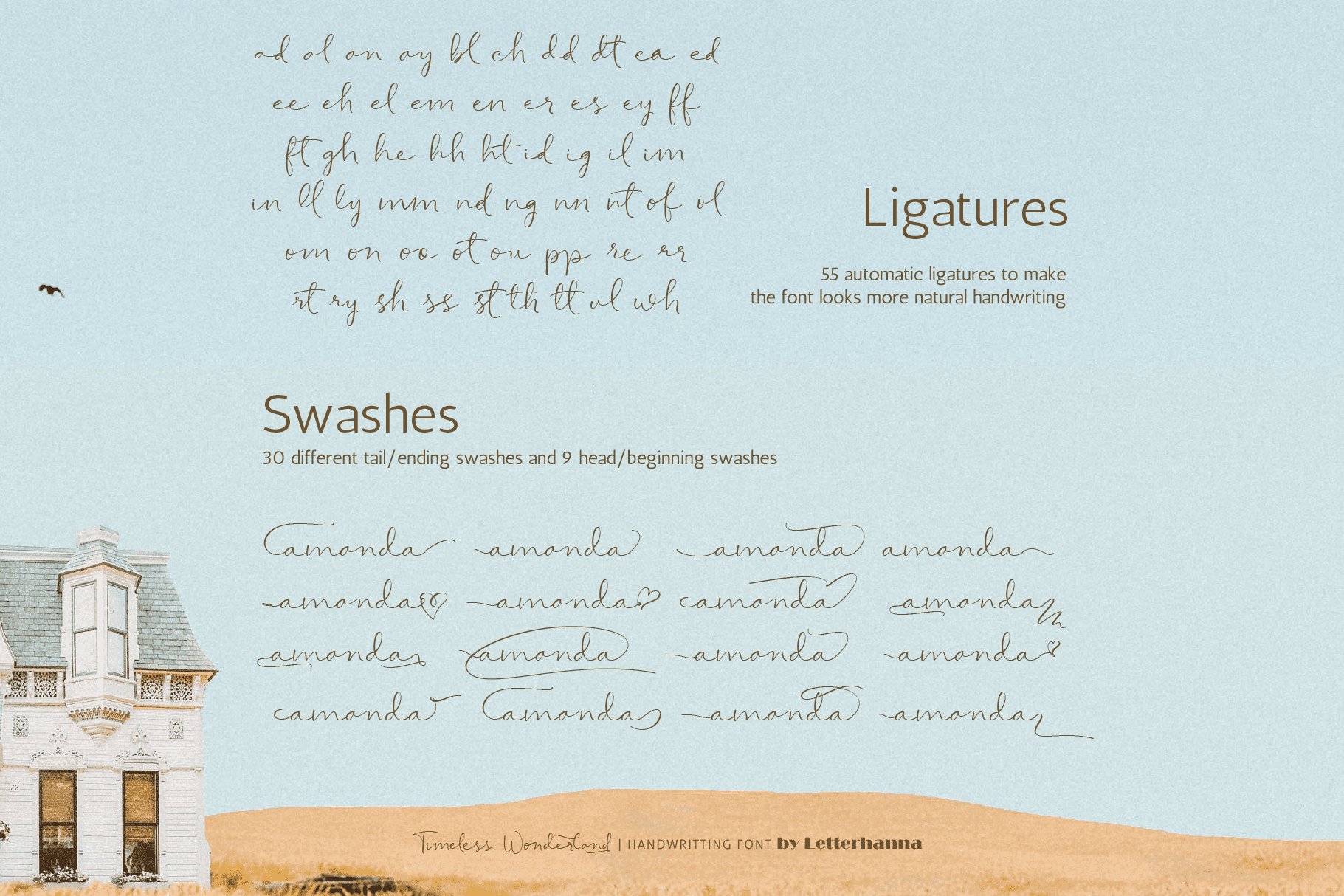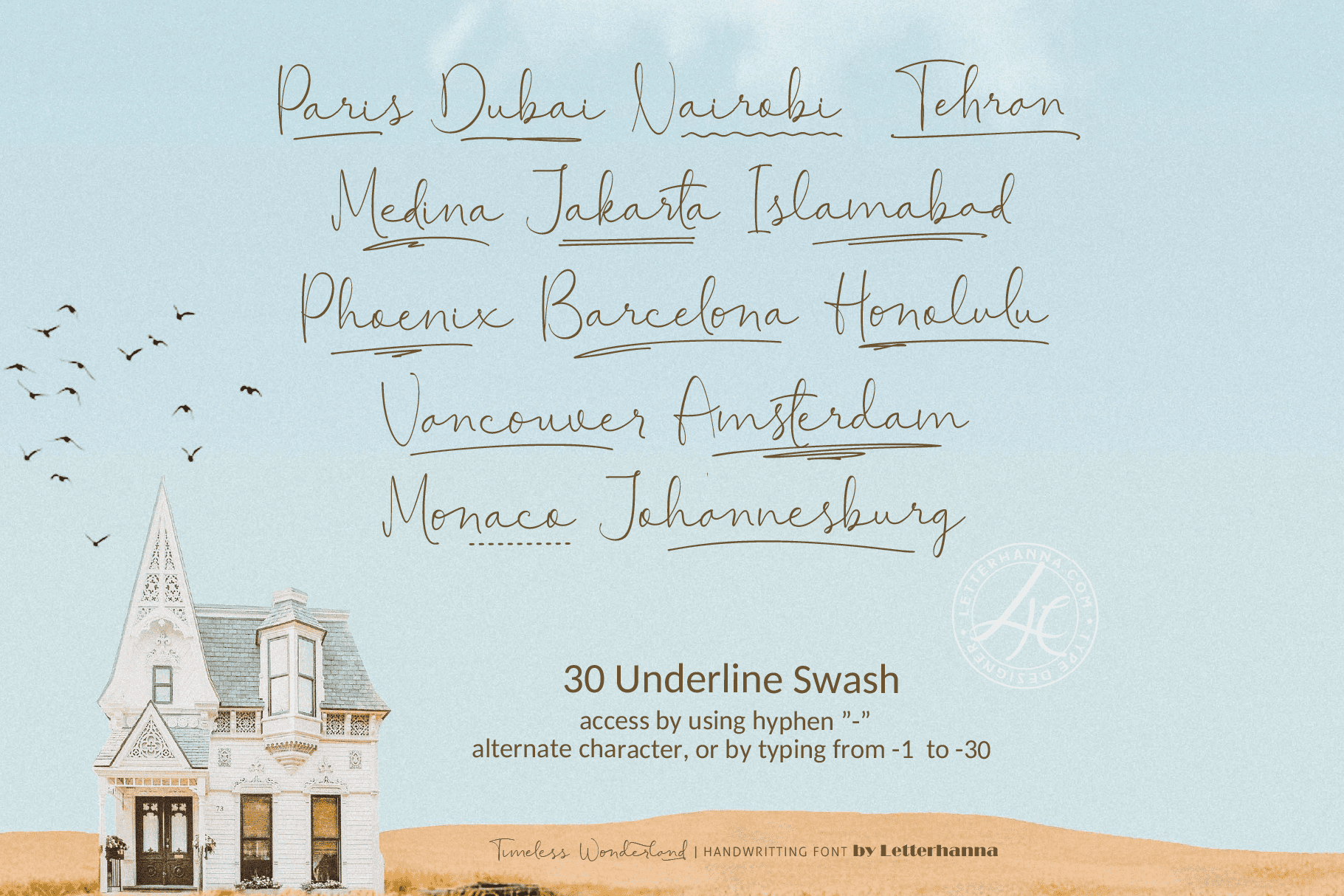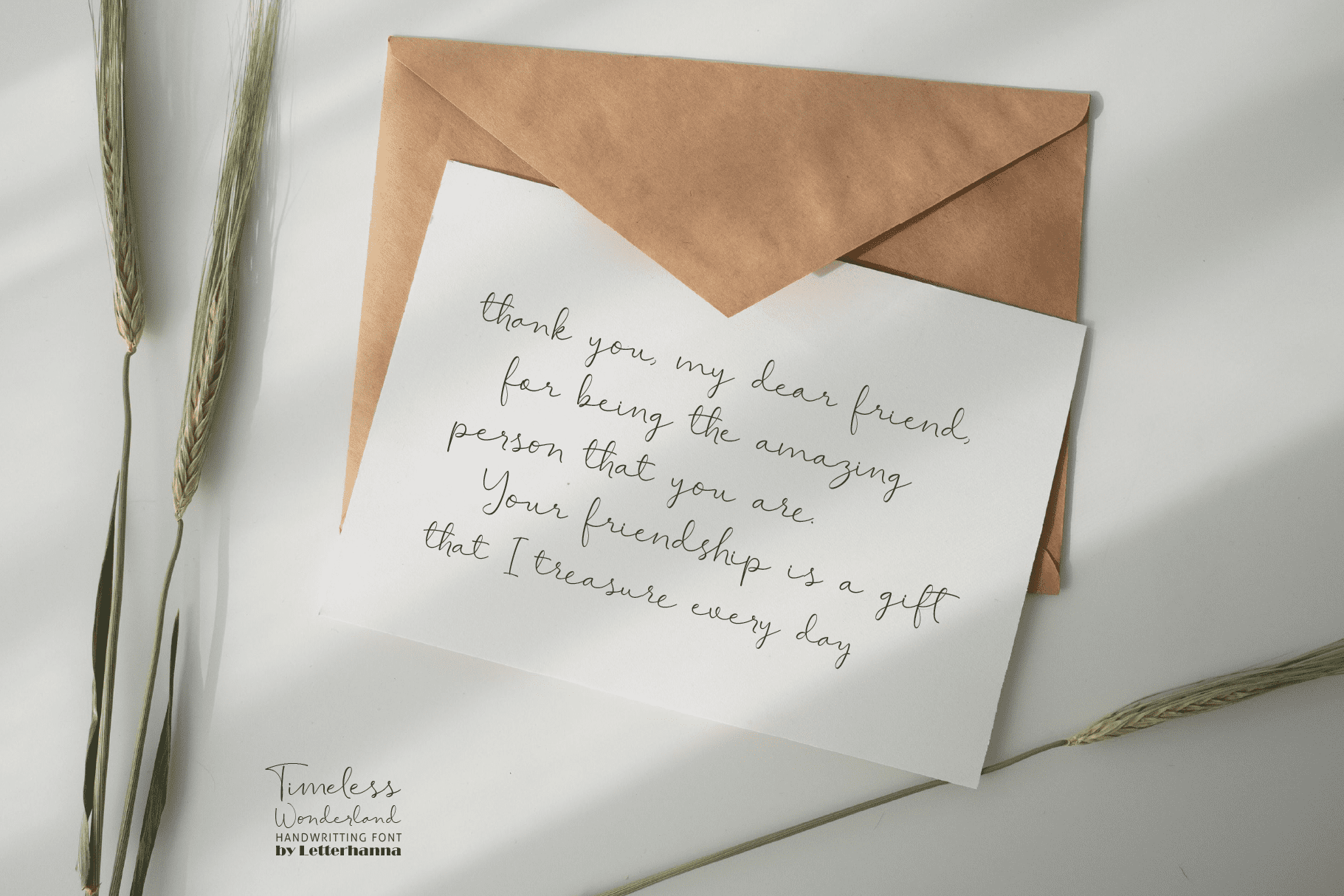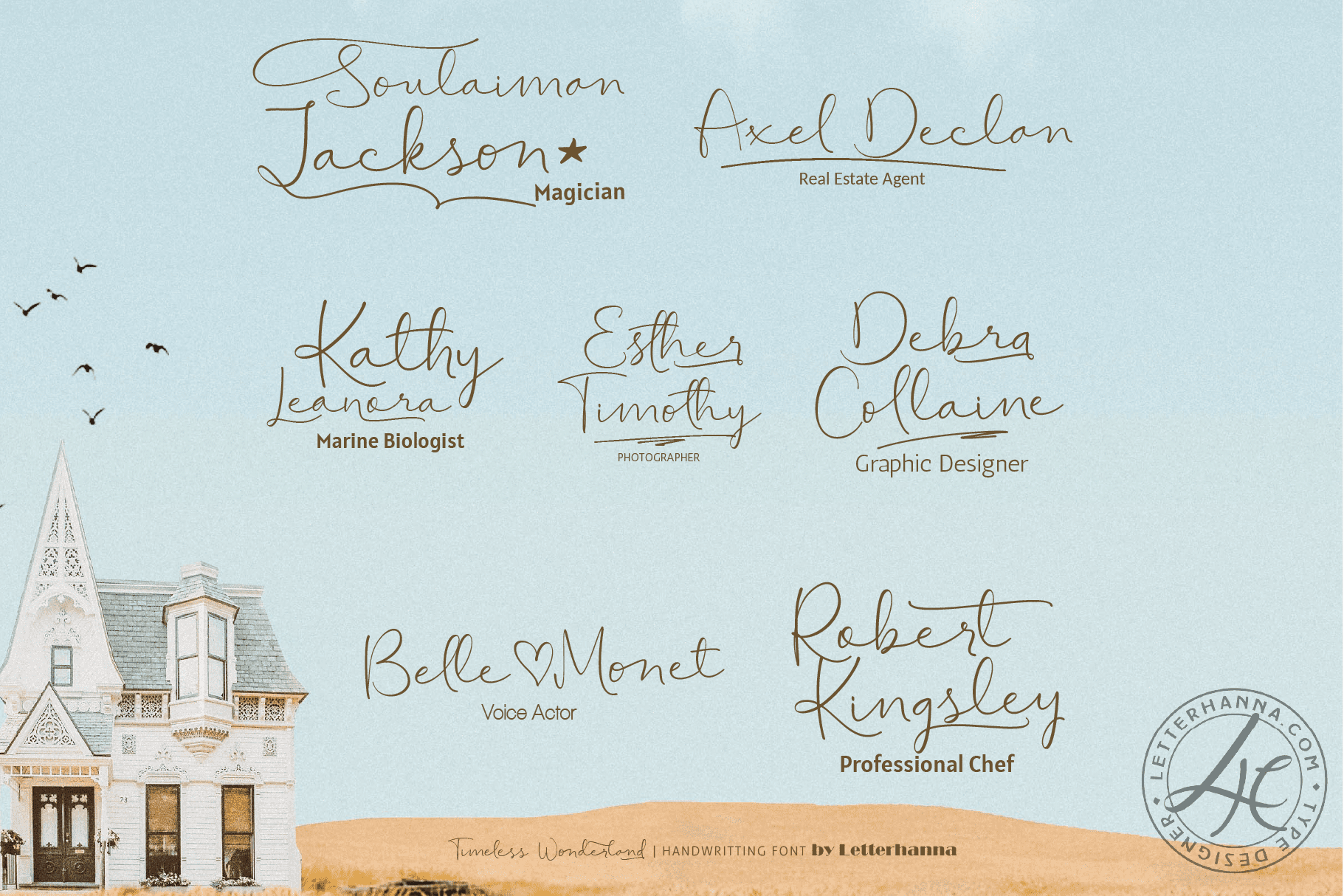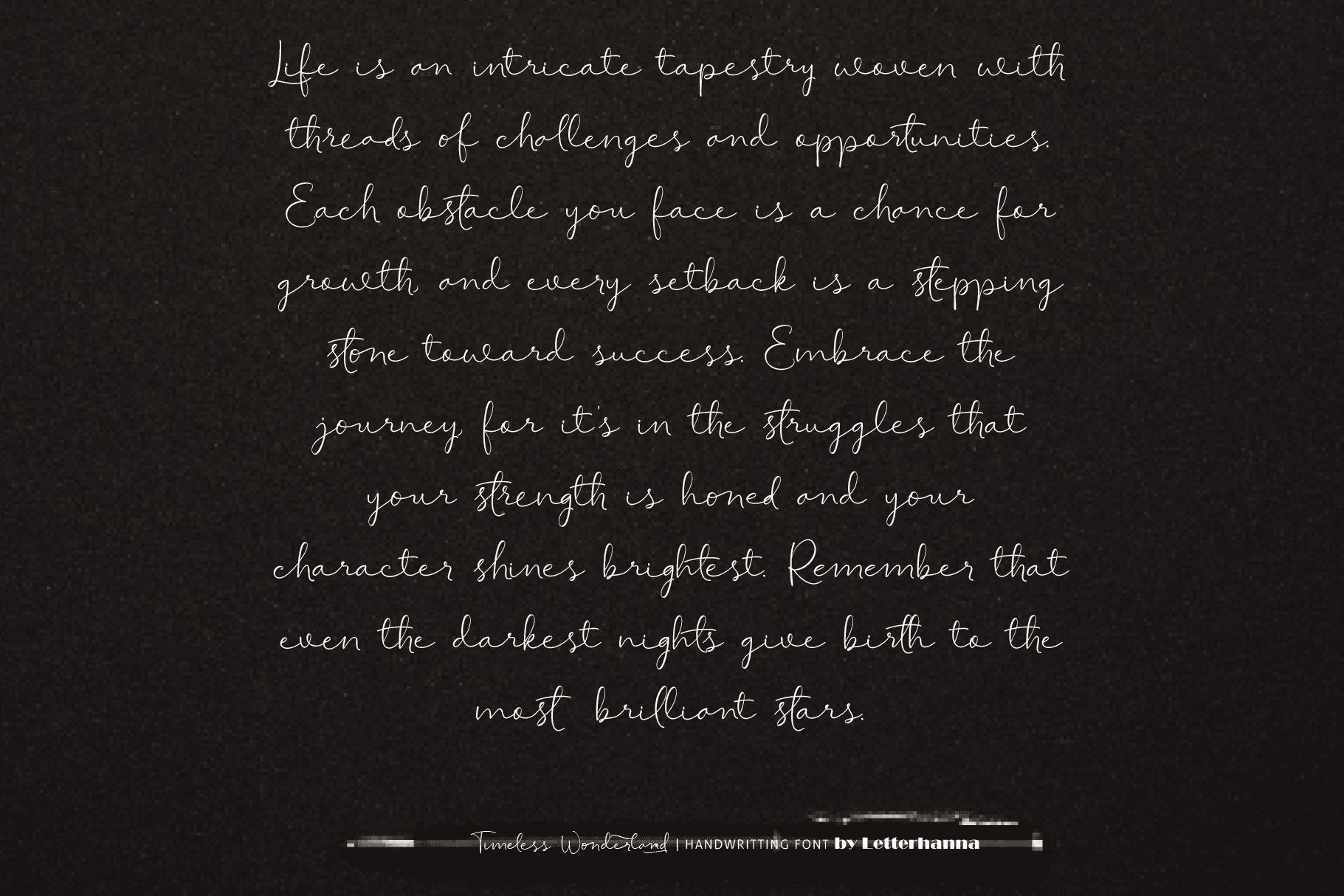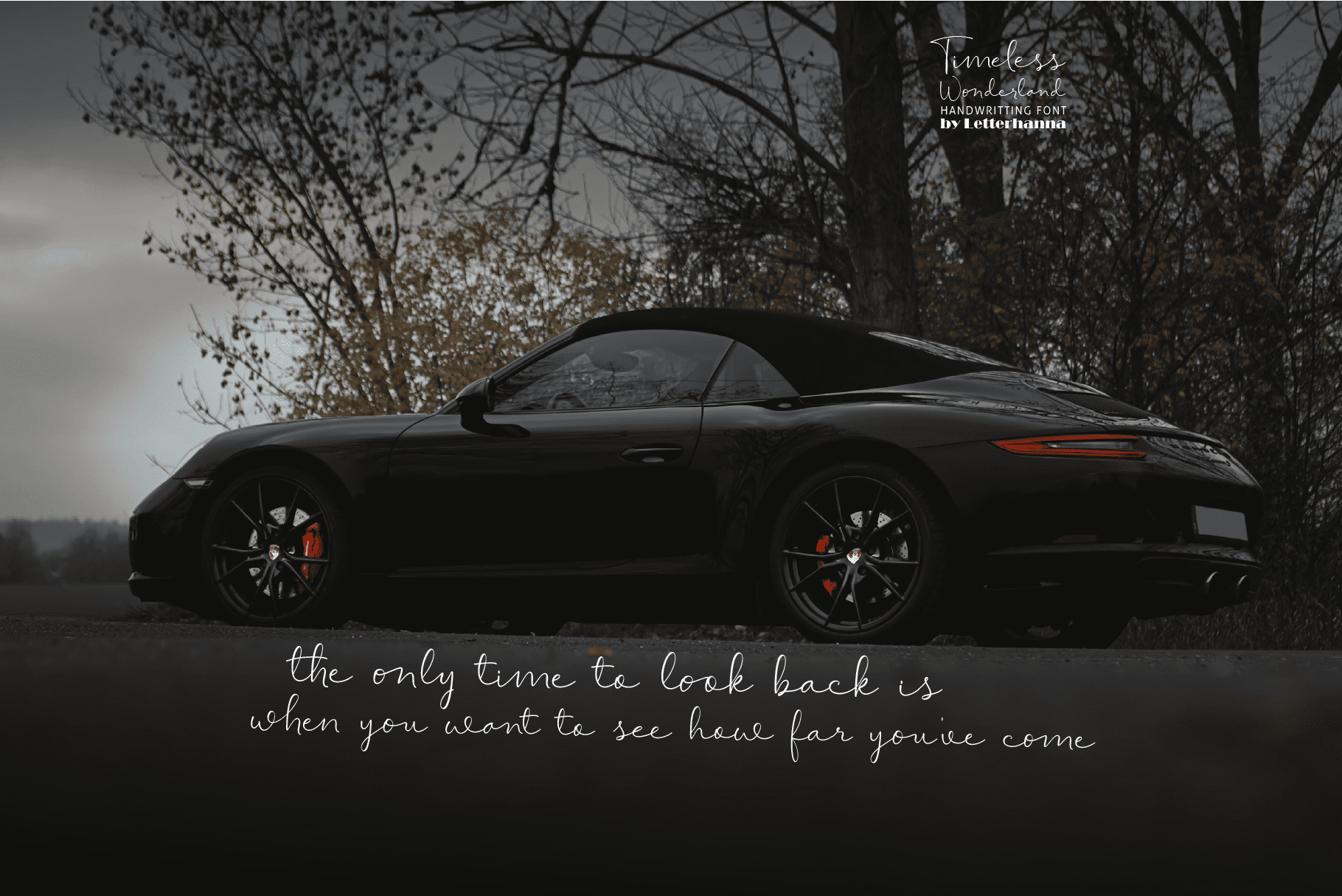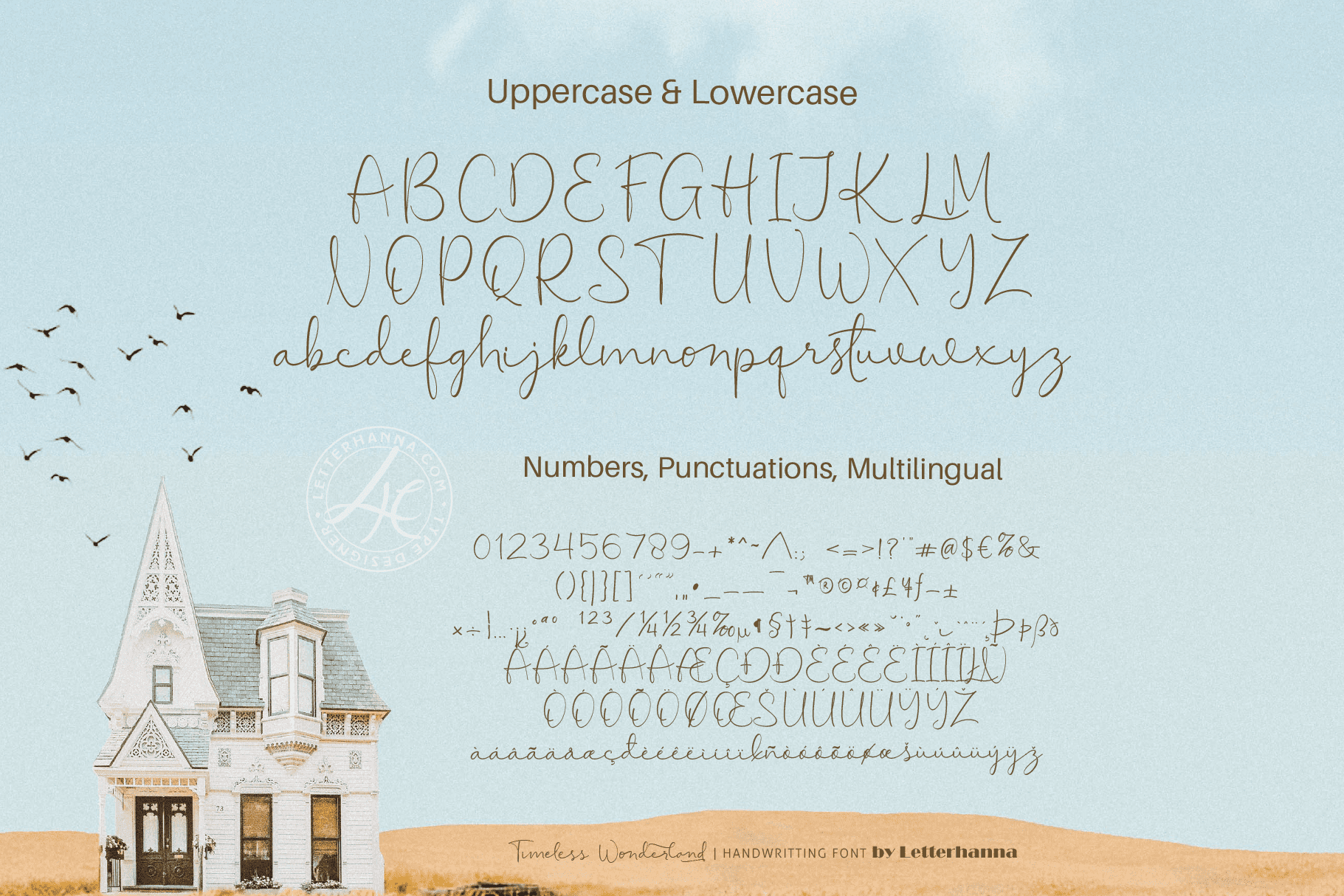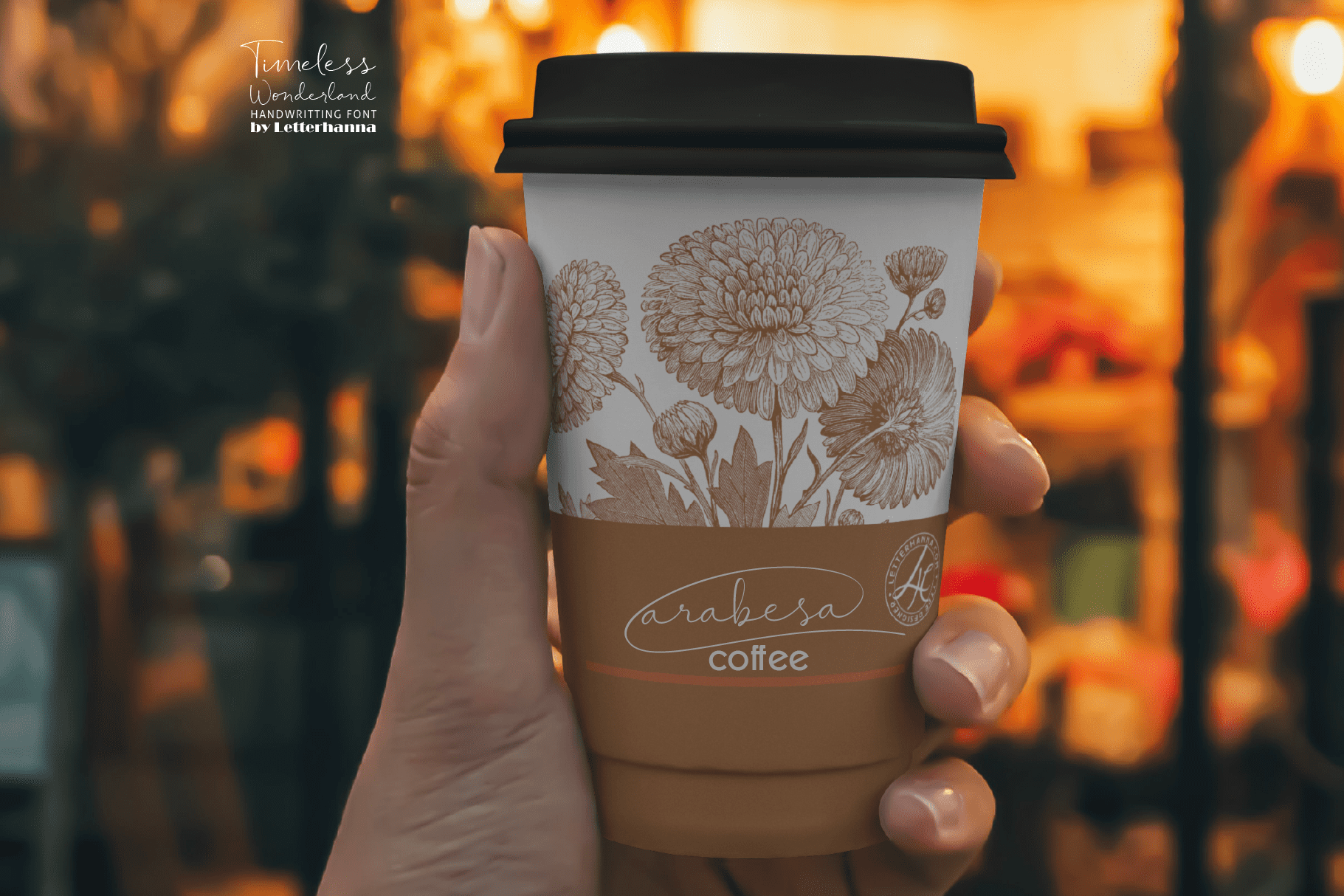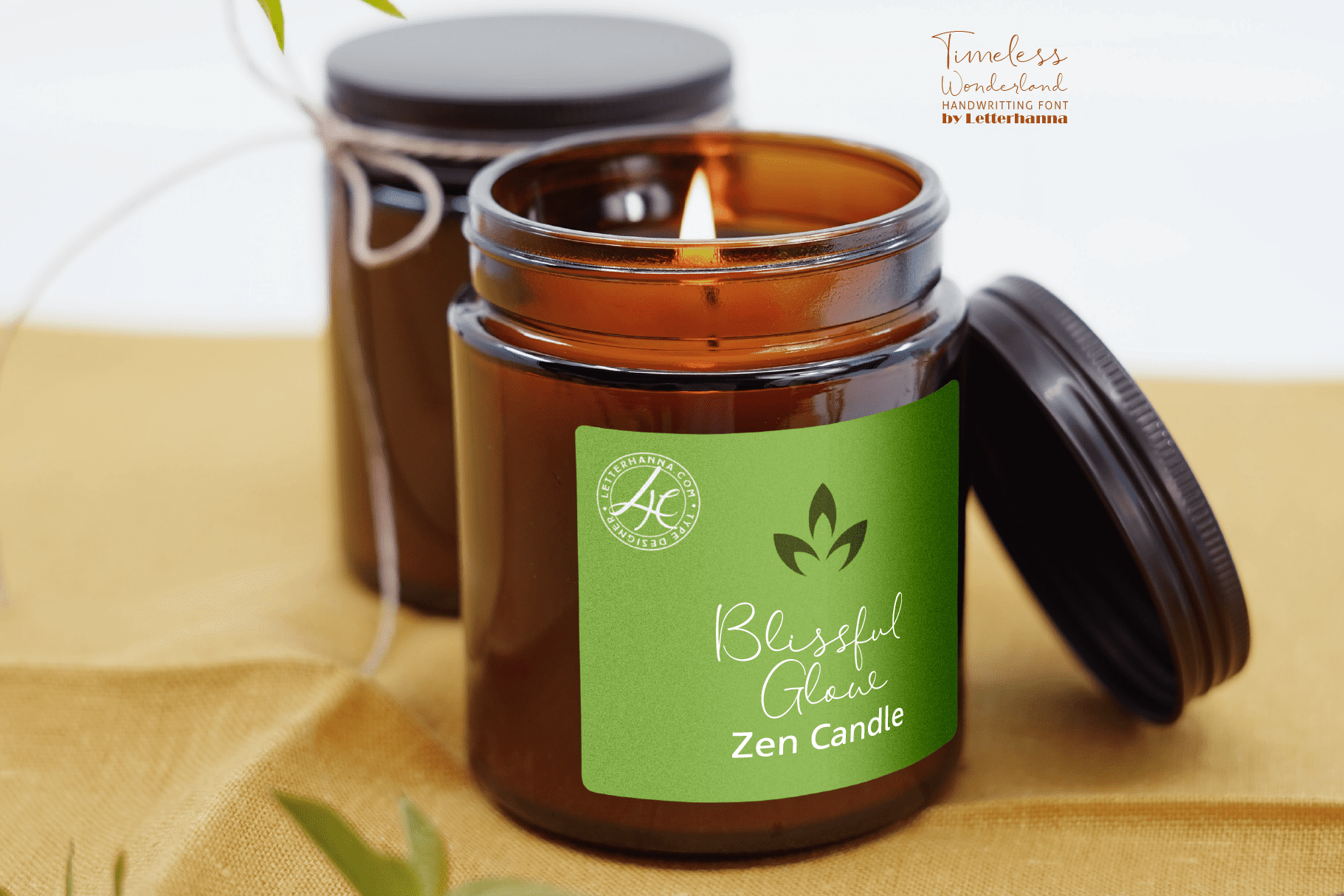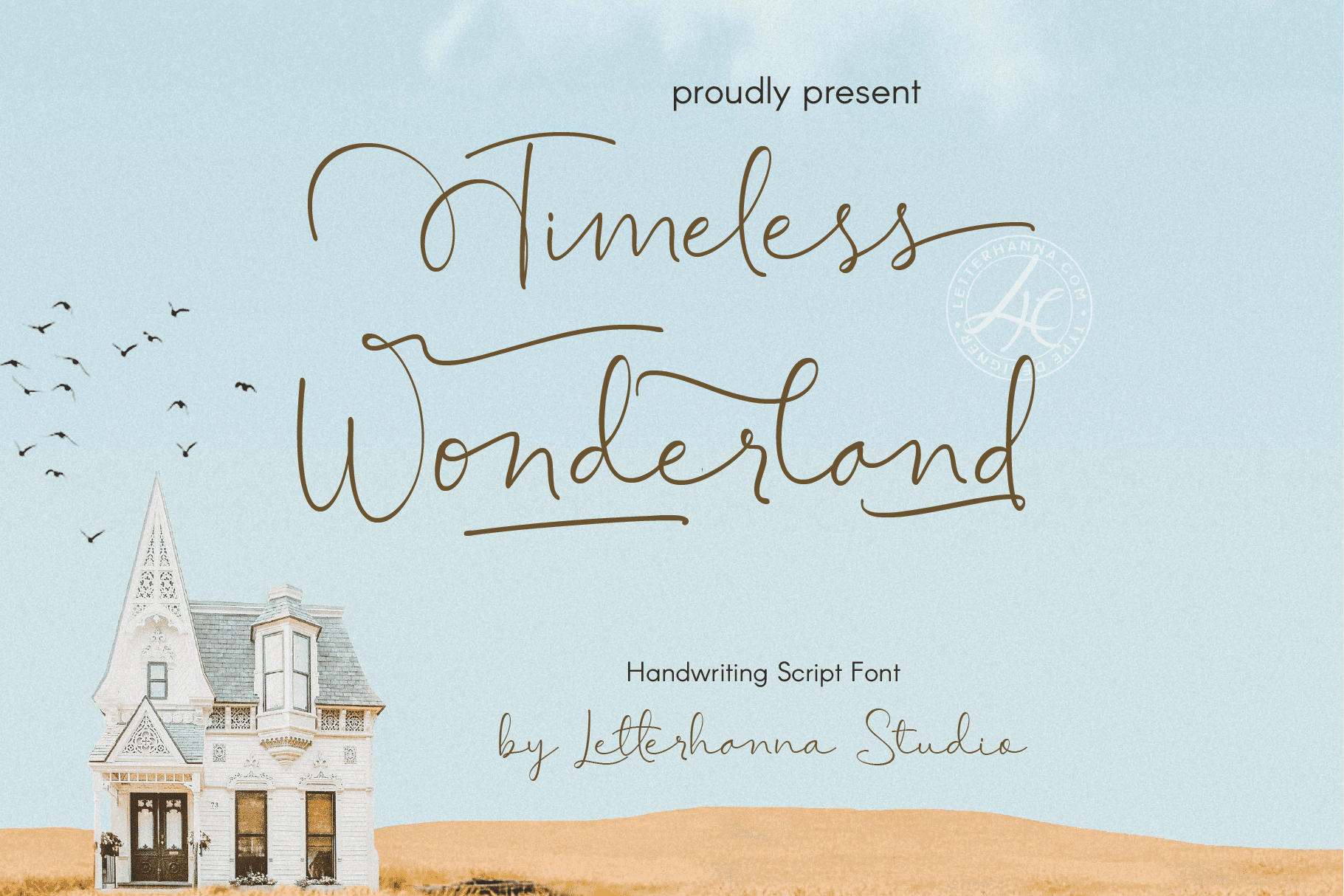
Timeless Wonderland is a captivating calligraphic handwritten script font that weaves a story of timeless beauty and enchantment. Each stroke of this font is a testament to the artistry of calligraphy, making it the perfect choice for creative projects that seek to blend elegance with an enduring sense of wonder.
Let “Timeless Wonderland” transport you to a world where beauty knows no bounds, where creativity is eternal, and where each letter penned tells a story of timeless wonder and elegance.
Easy access all alternate glyphs, swashes, ornaments and underlines just by using ligatures, you can try yourself in the font preview tool.
Stylistic alternate can be access by type plus symbol “+” in front of the original letter, for example type +A to get stylistic alternate of letter A capital.
Underline swashes can be access by type hyphen symbol “-” then followed by number 1 to 30, for example type -3, -22 or -17 etc to get various different underline swashes.
Head/beginning swashes can be access by type dollar symbol “$” then followed by number 1 to 9, for example type $2 or $8 to get various different head/beginning swashes.
Tail/ending swashes can be access by type percent symbol “%” then followed by number 1 to 30, for example type %3 or %15 etc to get various different tail/ending swashes.
Ornaments can be access by type at symbol “at” then followed by number 1 to 26, for example type @4 or @13 etc to get various different ornaments.
FEATURES
– Uppercase and Lowercase letters
– Numbering and Punctuations
– Multilingual Support
– Ligatures
– Beginning and ending swashes
– Underline swashes
– Stylistic alternate
– Ornaments
– Easy access swash just by using ligatures